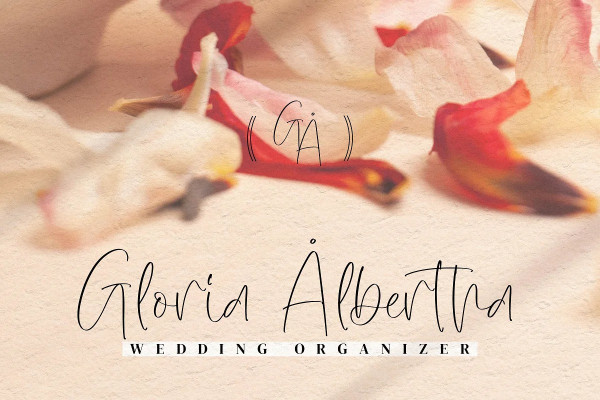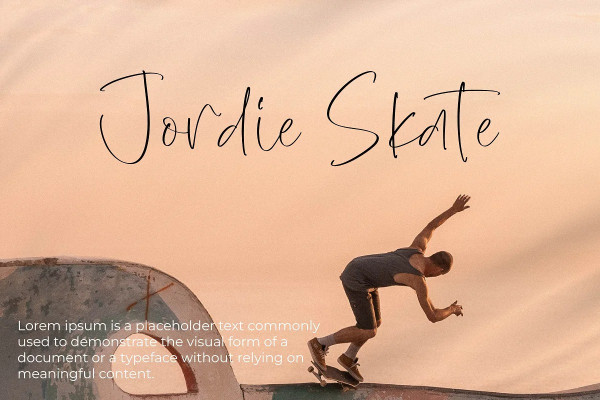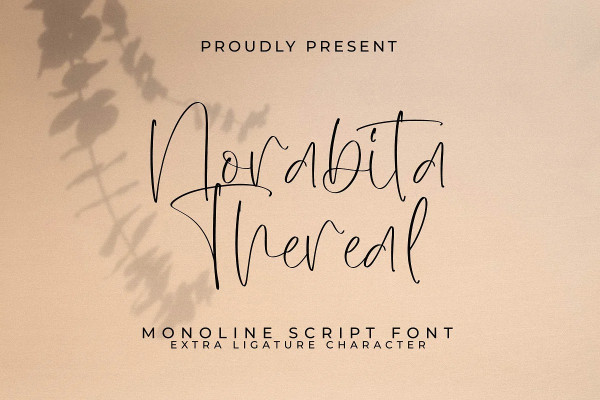
Norabita Thereal Font
Norabita Thereal Font – Monoline Script Font, from Integritype Studio, is a premium Monoline Script Font, perfect for any project like: logos, branding projects, homewares designs, product packaging, mugs, quotes, posters, shopping bags, t-shirts, covers books, business cards, invitation cards, greeting cards, labels, photography, watermarks, special events and all your other luxury projects that require a premium taste.